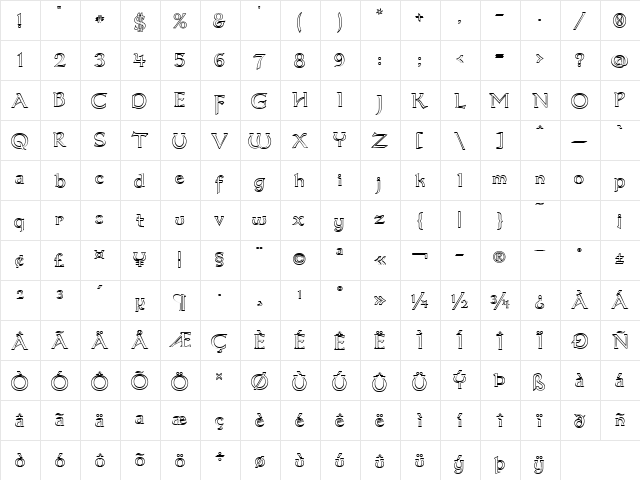
Dumbledor 3 Outline Regular
Design Context for Dumbledor 3 Outline Typeface
Dumbledor 3 Outline is built around its visual character rather than neutral utility — its distinctive forms are designed to make an impression at display sizes.
Font Pairing: Pair with a clean neutral sans-serif for body copy to let Dumbledor 3 Outline's character lead without overwhelming the composition.
Pro Tip: Treat Dumbledor 3 Outline as the centrepiece of your typographic hierarchy. One strong heading set in a decorative face can carry an entire layout.